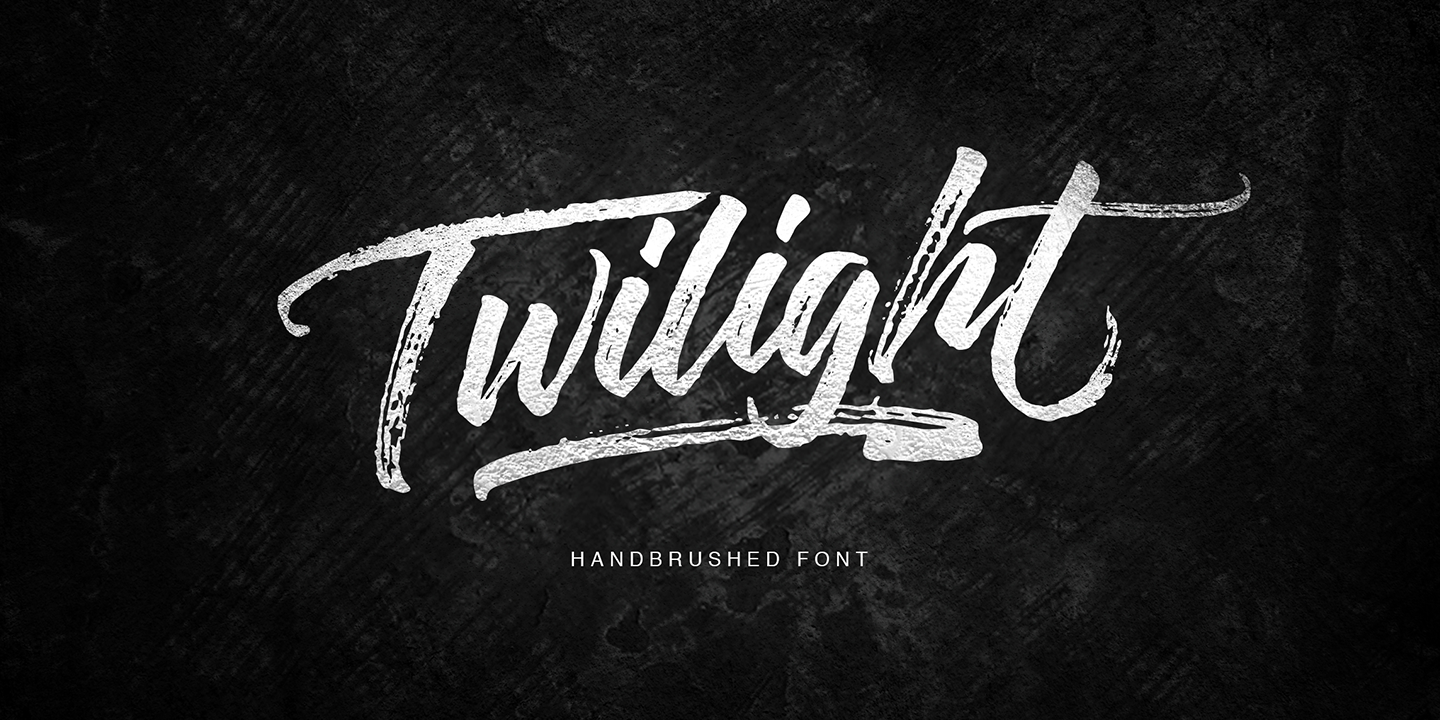
Twilight Script Free Download
Twilight Script Font Free Download
Twilight Script Font is perfect for romantic wedding invitations, enchanting event materials, mystical book covers, elegant poetry publications, dreamy spa branding, magical fairy tale designs, intimate candlelit dinner menus, and ethereal beauty product packaging. Its romantic mystique makes it ideal for projects celebrating love and twilight enchantment.
What makes Twilight Script Font exciting is its mesmerizing ability to capture the romantic magic of twilight hours through gracefully flowing script letterforms that dance with ethereal beauty and intimate charm. The enchanting construction features delicate curves with dreamy elegance that evokes the soft glow of sunset and the promise of starlit evenings. This typeface embodies romantic mystique and twilight romance, making every design feel magically romantic and timelessly enchanting.
Twilight Script Font family includes Regular, Bold, Light, Italic, Ornate, and Romantic variations, providing designers with comprehensive tools for creating captivating twilight-inspired typographic compositions that celebrate romantic elegance.
Embrace magical romance with the enchanting beauty of Twilight Script Font Free Download. This captivating typeface brings romantic twilight mystique to any creative project, whether you're developing brand identities for romantic venues, crafting promotional materials for intimate events, or designing graphics for love-focused businesses. The font's twilight-kissed architecture and romantic presence make it essential for projects requiring enchanting appeal. Twilight Script Font perfectly captures the essence of romantic twilight while ensuring elegant readability across all intimate applications. Its graceful character forms and romance-inspired design language make it ideal for brands seeking to communicate love and magical moments, delivering memorable results that touch hearts and create lasting connections with audiences who appreciate romantic beauty, intimate moments, and the timeless magic of twilight hours when love feels most enchanting.